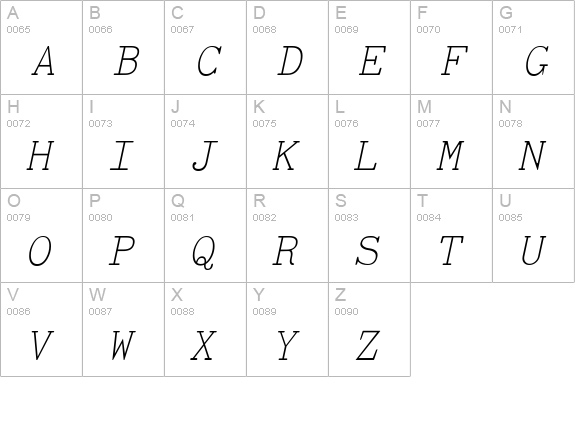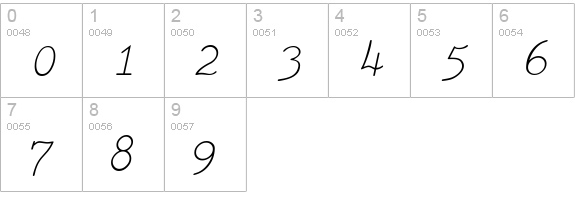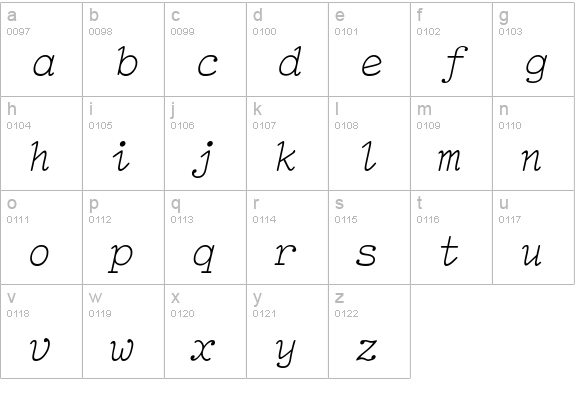
TiredOfCourierThin Italic Font Details
TiredOfCourierThin Italic is a distinctive, italic variant in the TiredOfCourierThin typeface family \xE2\x80\x94 well suited to design and typography projects.
Introducing TiredOfCourierThin Italic font, a versatile and stylish typeface that is sure to captivate your audience. This font exudes a unique charm with its slender and delicate appearance, perfect for adding a touch of elegance and sophistication to any design project. TiredOfCourierThin Italic font offers a seamless blend of thin strokes and italicized slant, creating a harmonious balance that is both visually appealing and effortlessly legible. Its graceful curves and sleek lines make it an ideal choice for a wide range of applications, from editorial designs, branding projects, to digital and print media. With its versatility, TiredOfCourierThin Italic font effortlessly adapts to different design contexts, whether it be for headings, subheadings, body text, or even decorative elements. Its refined and modern aesthetic adds a touch of professionalism and refinement to any project, elevating it to new heights. As an added bonus, TiredOfCourierThin Italic font is available for free download at FontsMarket.com. This means that you can easily access and enjoy this stunning typeface without any cost, making it an invaluable asset for both personal and commercial use. Its availability on FontsMarket.com ensures a hassle-free and convenient experience, allowing you to effortlessly incorporate this font into your designs. So, if you are looking for a font that combines elegance, versatility, and affordability, look no further than TiredOfCourierThin Italic font. Download it for free at FontsMarket.com and watch as your designs come to life with its timeless appeal and effortless grace. Get ready to make a lasting impression with TiredOfCourierThin Italic font - the perfect choice for your next design endeavor.